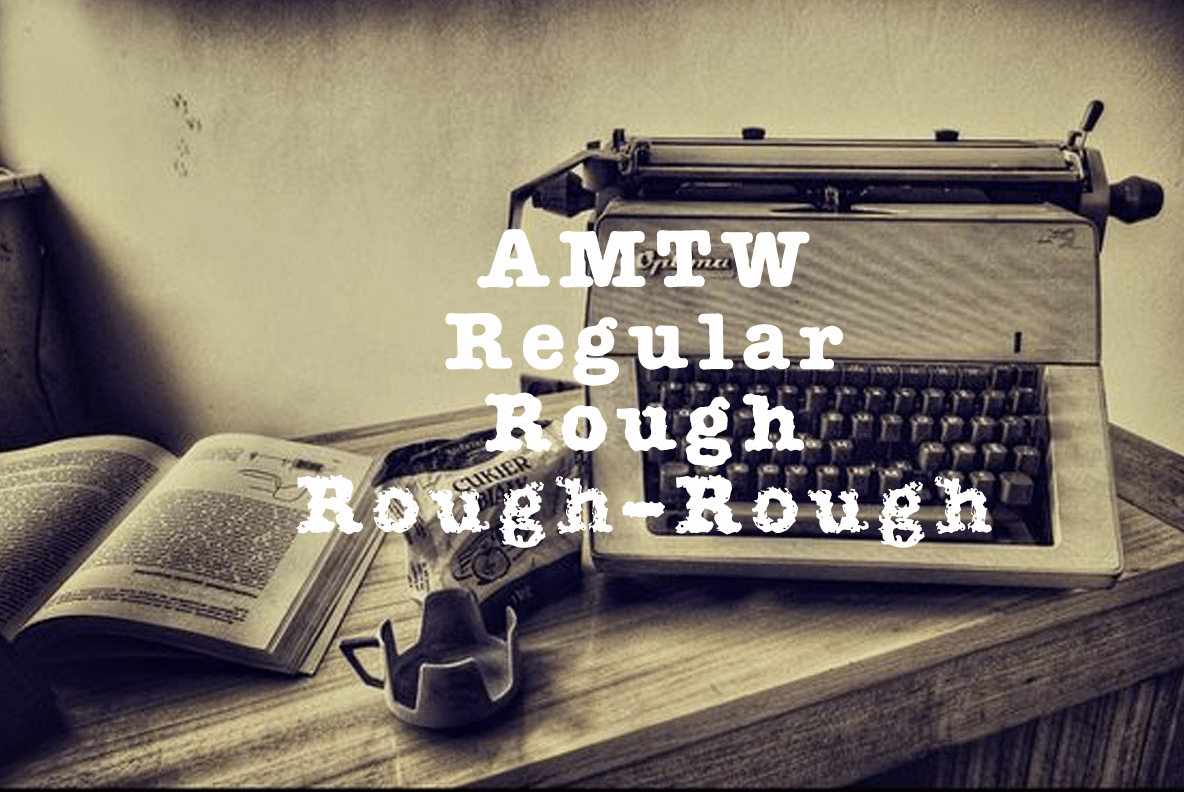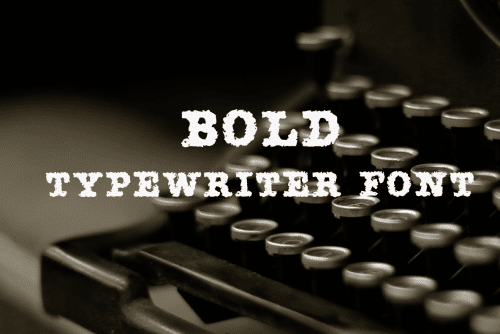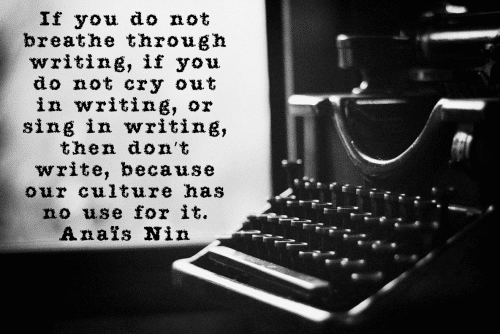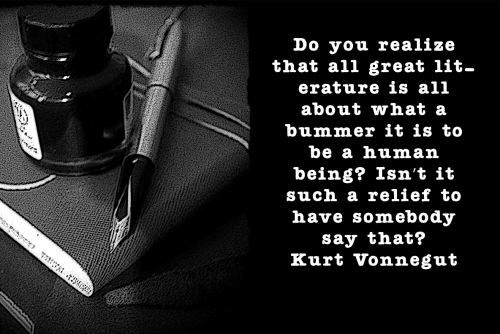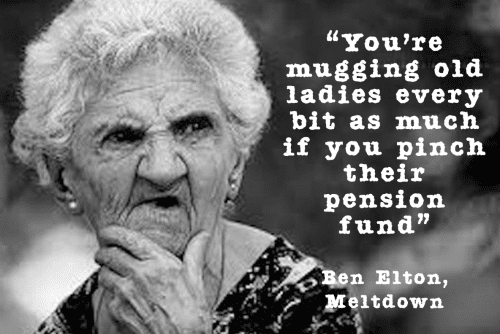
This one of the best typewriter font AMTW, it have 3 stylesm regular, rough and rough-rough. we offering free for personal use ONLY, for commercial use please contact .
- Designer: Jadugar